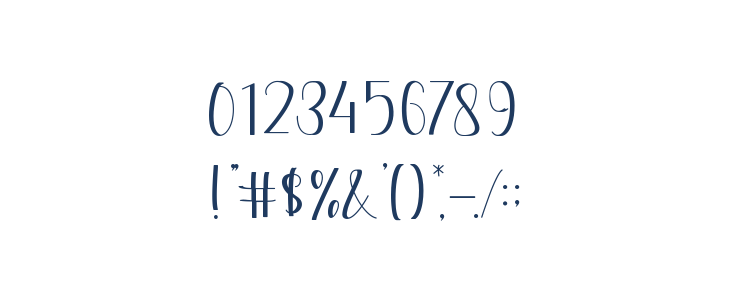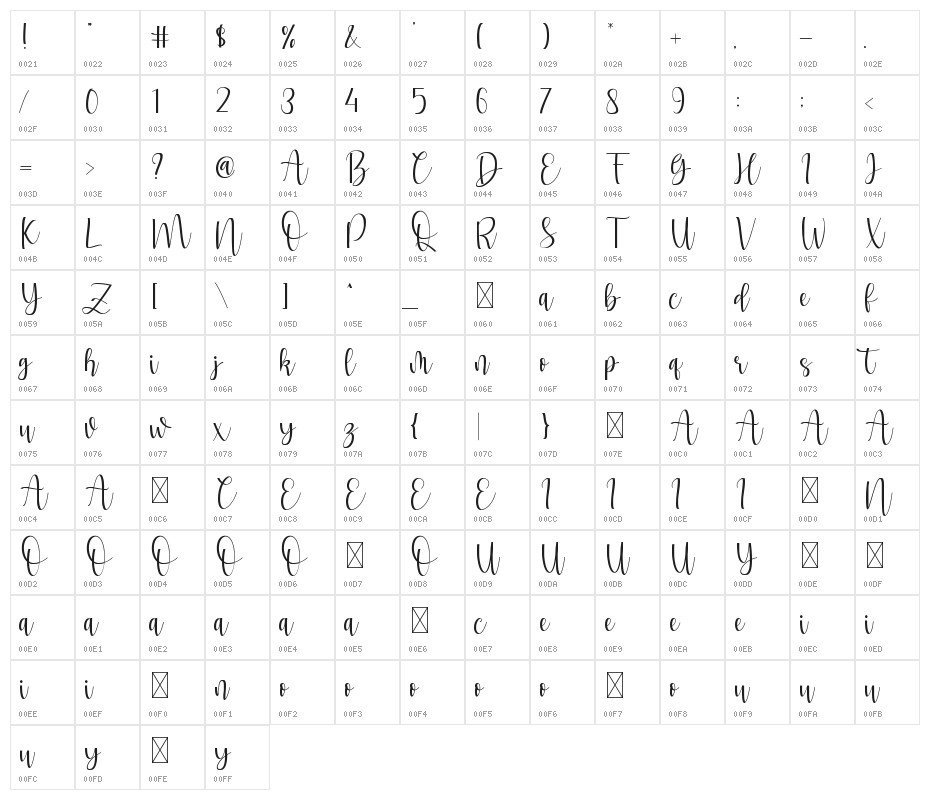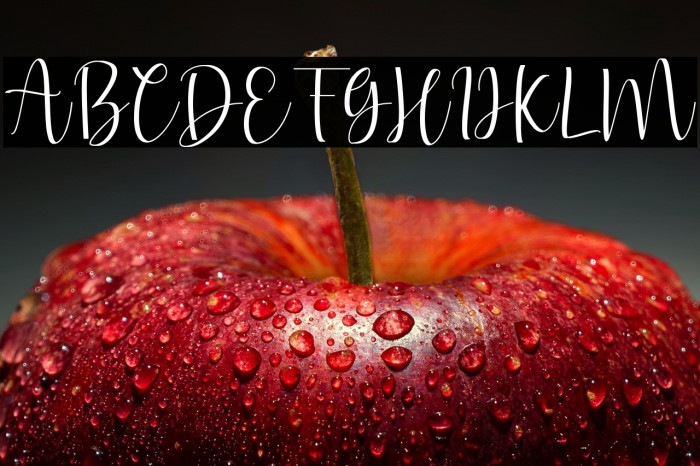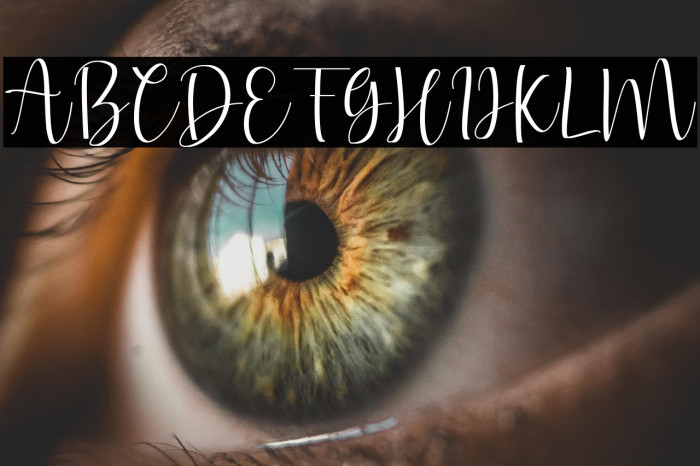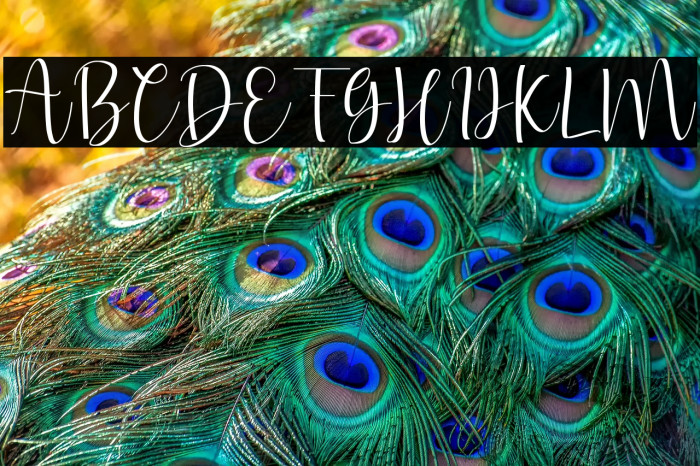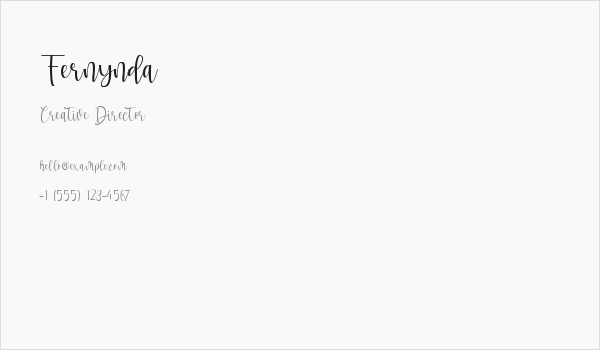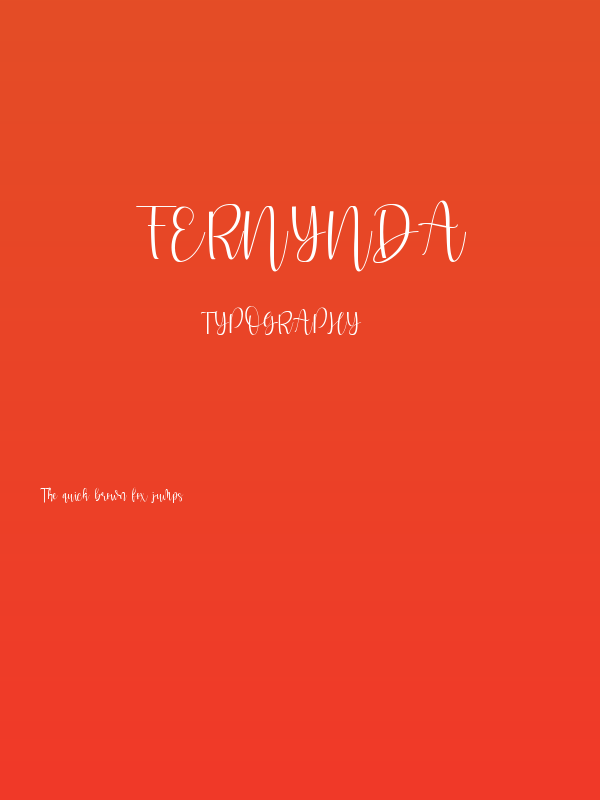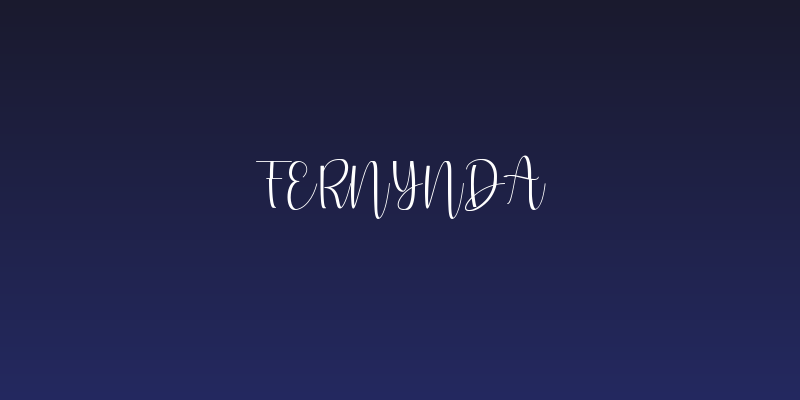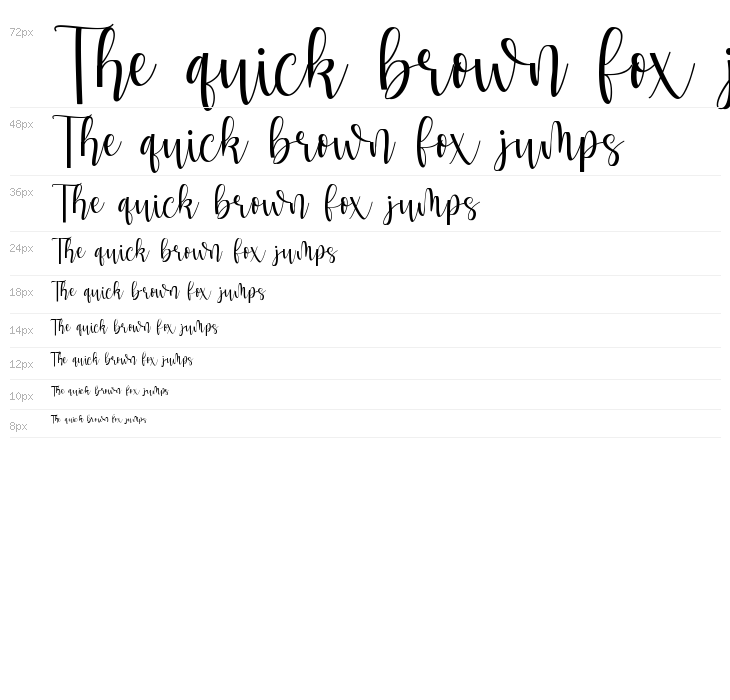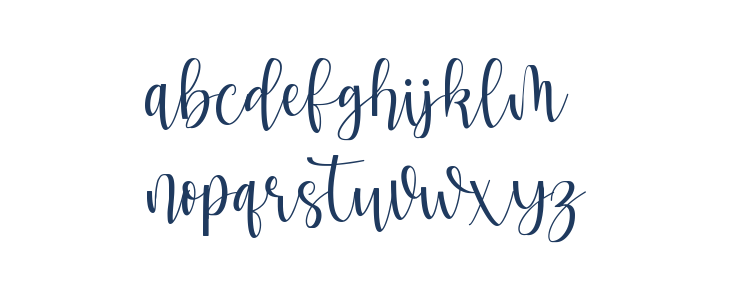
Fernynda Font
Fernynda Description
This font features a lively and flowing script style with a modern twist. The uppercase letters exhibit a playful elegance with smooth curves and varying stroke widths, creating a sense of movement and fluidity. The lowercase letters maintain this dynamic quality, offering a harmonious blend of loops and swashes that enhance its decorative appeal. Numbers and special characters are designed with the same attention to detail, ensuring consistency across all glyphs. The overall design is both stylish and approachable, making it suitable for a variety of creative applications.